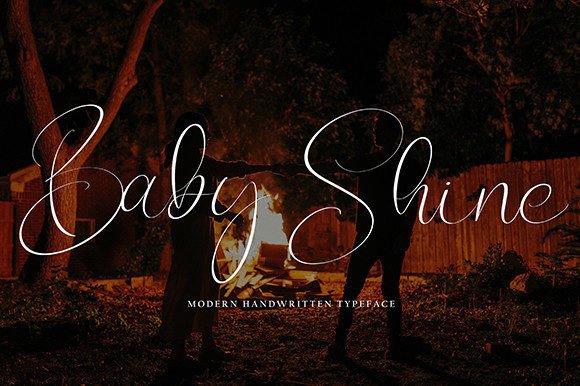
Baby Shine Font: The Elegant and Dainty Handwritten Font for Your Creative Projects
The world of typography is vast and diverse, with numerous fonts available for various design needs. One such font that has gained popularity among designers and crafty enthusiasts is the Baby Shine font. This elegant and dainty handwritten font features sweet and delicate characters that can add a touch of sophistication to a wide range of creative projects. In this article, we will explore the features and uses of the Baby Shine font, and why it’s an excellent choice for your next design project.
What is Baby Shine Font?
Baby Shine is a beautiful, handwritten font that boasts an original and unique look. Its elegant and dainty characters make it perfect for designs that require a touch of sweetness and sophistication. The font features a distinctive, cursive style with subtle variations in line width, giving it a natural and hand-crafted feel.
The Baby Shine font is designed to be versatile and can be used for a wide range of applications, from letterheads and titles to stationery and more. Its delicate and refined appearance makes it an excellent choice for designs that require a feminine touch.
Uses of Baby Shine Font
The Baby Shine font is an excellent choice for various design projects, including:
- Letterheads and Titles: The elegant and refined appearance of the Baby Shine font makes it perfect for creating letterheads and titles that require a touch of sophistication.
- Stationery: The font’s delicate and feminine appearance makes it an excellent choice for designing stationery, such as greeting cards, invitations, and thank-you cards.
- Crafty Projects: The Baby Shine font is a great choice for crafty projects, such as scrapbooking, DIY tutorials, and handmade crafts.
- Branding and Packaging: The font’s unique and distinctive appearance makes it an excellent choice for branding and packaging designs that require a touch of elegance and sophistication.
Benefits of Using Baby Shine Font
The Baby Shine font offers several benefits, including:
- Elegant and Refined Appearance: The font’s elegant and refined appearance makes it perfect for designs that require a touch of sophistication.
- Versatility: The Baby Shine font is versatile and can be used for a wide range of design projects.
- Unique and Distinctive: The font’s unique and distinctive appearance makes it an excellent choice for designs that require a touch of originality.
Tips for Using Baby Shine Font
Here are some tips for using the Baby Shine font:
- Use it for Headings and Titles: The Baby Shine font is perfect for headings and titles, as it adds a touch of elegance and sophistication to your design.
- Pair it with Other Fonts: The Baby Shine font can be paired with other fonts to create a unique and visually appealing design.
- Experiment with Colors: The Baby Shine font can be used with a variety of colors to create a design that matches your brand or personal style.
- Use it for Digital and Print Designs: The Baby Shine font can be used for both digital and print designs, making it a versatile choice for designers.
The Baby Shine font is an elegant and dainty handwritten font that features sweet and delicate characters. Its unique and distinctive appearance makes it an excellent choice for a wide range of design projects, from letterheads and titles to stationery and more. With its versatility, ease of use, and elegant appearance, the Baby Shine font is a great addition to any designer’s font collection.